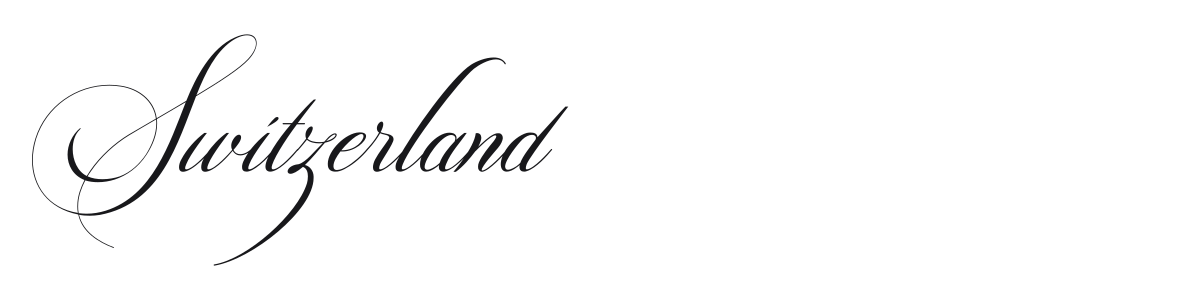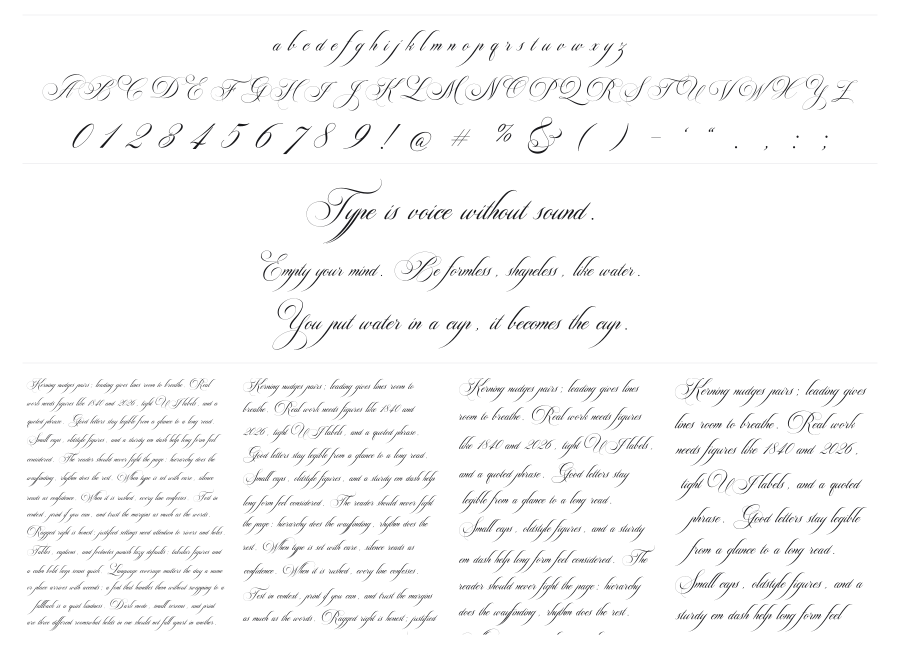
Switzerland
Switzerland is an ornate formal script drawing heavily from copperplate and Spencerian calligraphy traditions. Its dramatic stroke contrast, long looping swashes, and deeply connected cursive joins give it a handcrafted elegance suited to occasions and brands where refinement matters. The extended flourishes make it particularly expressive at large display sizes.